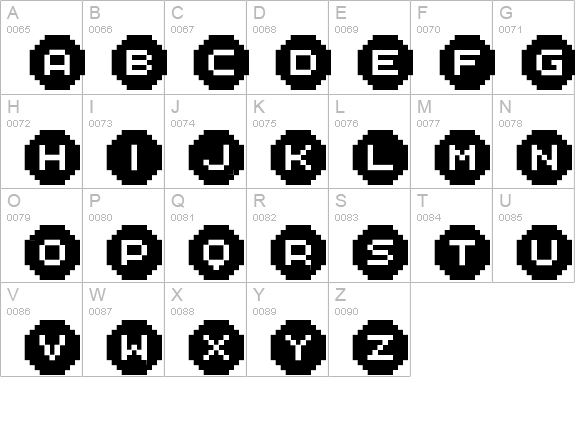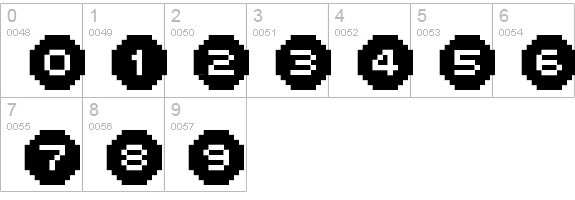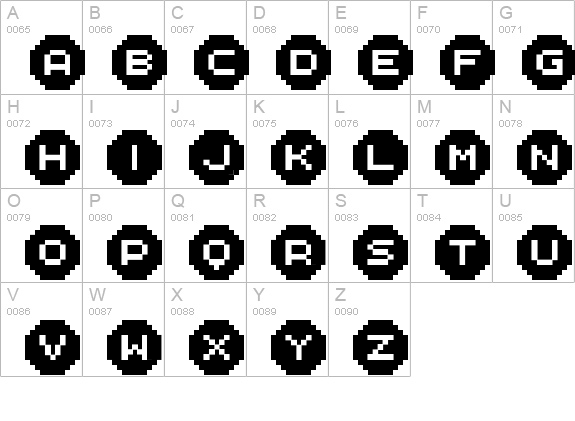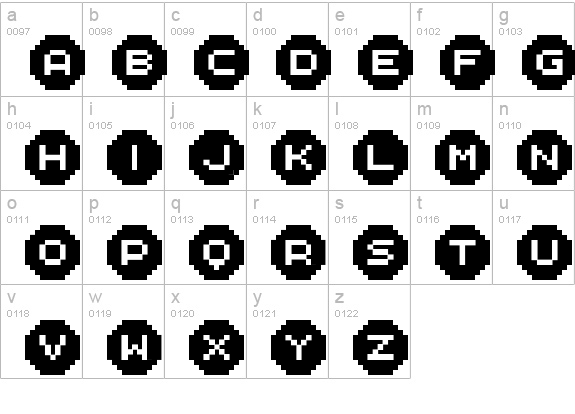
FFF Interface08 Font Details
The FFF Interface08 font is a modern and stylish typeface that combines sleek lines with a futuristic aesthetic. With its clean and geometric design, this font is perfect for projects that require a contemporary look. The FFF Interface08 font is versatile and can be used for a wide range of design purposes, from branding to web design. Best of all, this font is available for free download at FontsMarket.com. Whether you're a designer looking to add a fresh touch to your projects or a creative individual seeking a unique typeface for personal use, the FFF Interface08 font is a fantastic choice. Don't miss out on the opportunity to enhance your designs with this eye-catching and free font!